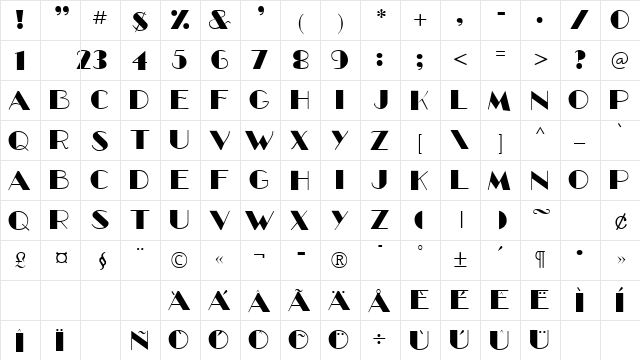
GLitzyPlain Regular
Design Context for GLitzyPlain Typeface
GLitzyPlain is a composed and adaptable typeface that performs quietly and consistently across a wide range of design contexts.